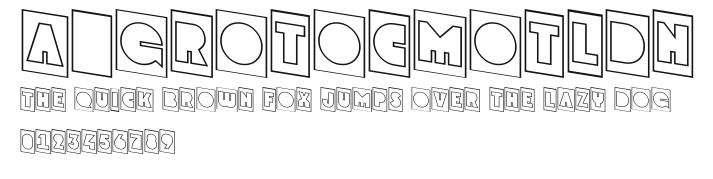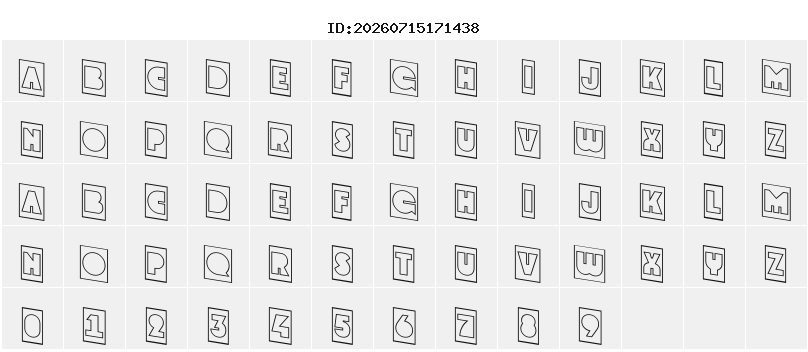
a_GrotoCmOtlDn Preview
• Font Name: a_GrotoCmOtlDn
• Font ID: a_GrotoCmOtl
• Full Font Name: a_GrotoCmOtlDn
• Version: 01.03
• PostScript Name: AGrotoCmOtlDn
About a_GrotoCmOtlDn.ttf
a_GrotoCmOtlDn.ttf is a modern, elegant sans-serif font designed for ultimate readability and visual harmony. Perfect for branding, headlines, web design, and print materials.